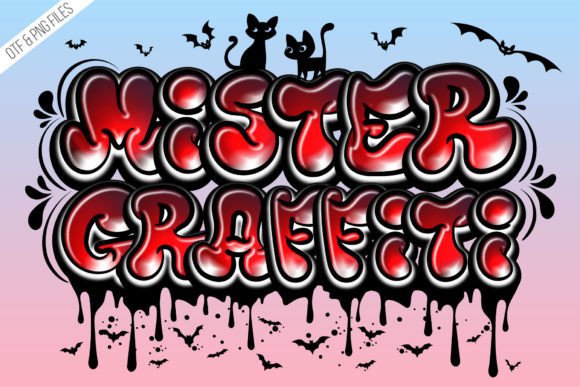
Looking for the perfect font to add an urban touch to your designs? Look no further than Mister Graffiti, the colorful graffiti-styled font from Nobu Collections. This font is the ultimate choice for anyone who wants to make a statement with their designs, whether you're creating a birthday card, poster, or any other type of project.
With Mister Graffiti, the possibilities are endless. This font family is perfect for adding a touch of color and personality to any design. Whether you're looking to create a bold and eye-catching header, or you want to add a unique twist to your text, Mister Graffiti has got you covered.
One of the best things about Mister Graffiti is its versatility. This font is perfect for any occasion, whether you're designing a birthday card for a friend or a poster for a local event. Its bold and colorful style is sure to make a statement and grab the attention of anyone who sees it.